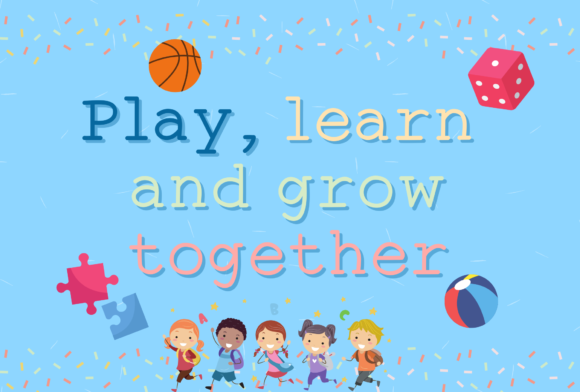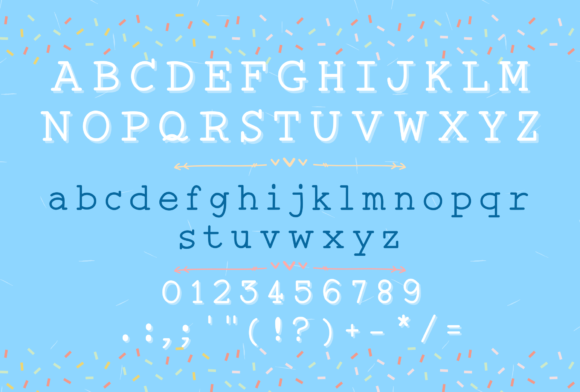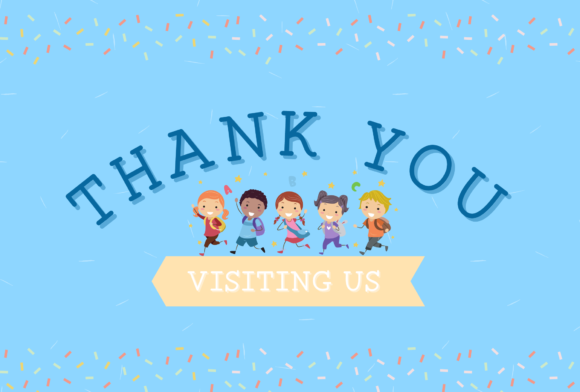
Quickie Font
Quickie is a cool, fun and vintage styled slab serif font. It matches a variety of designs related to crafting, digital designing, presentations or greeting cards making.